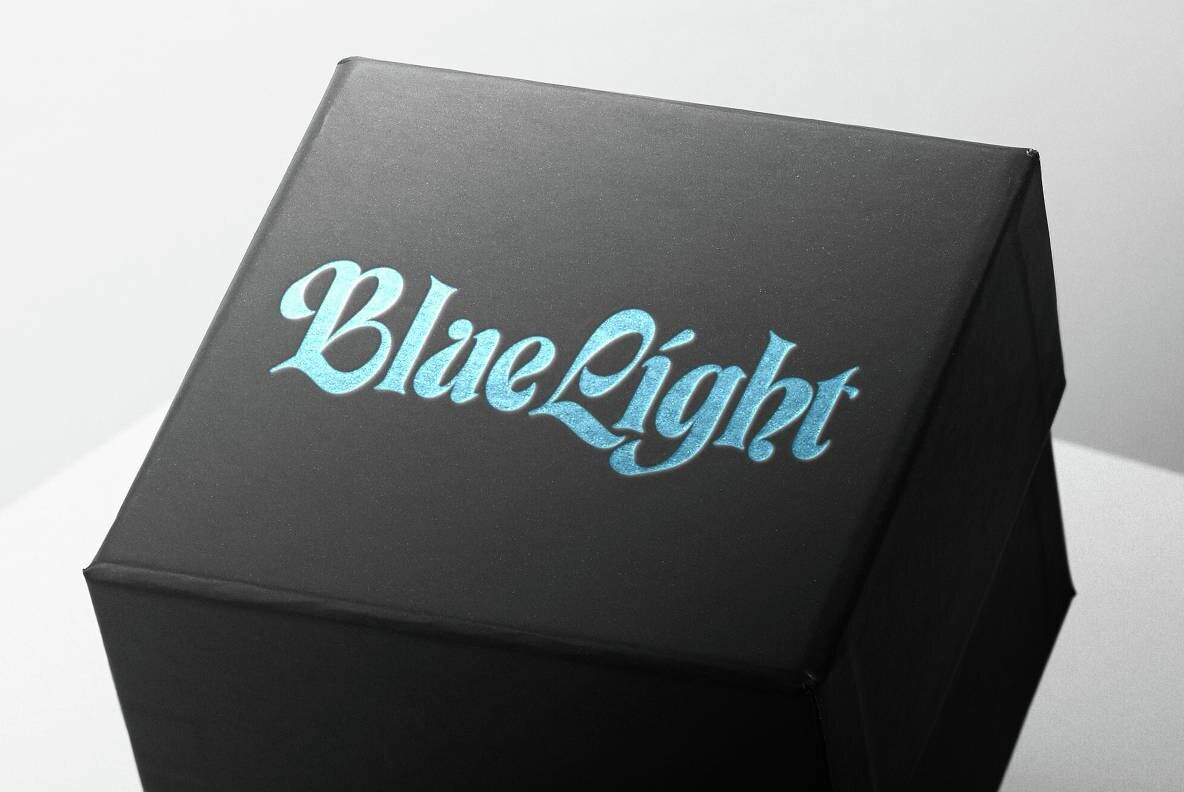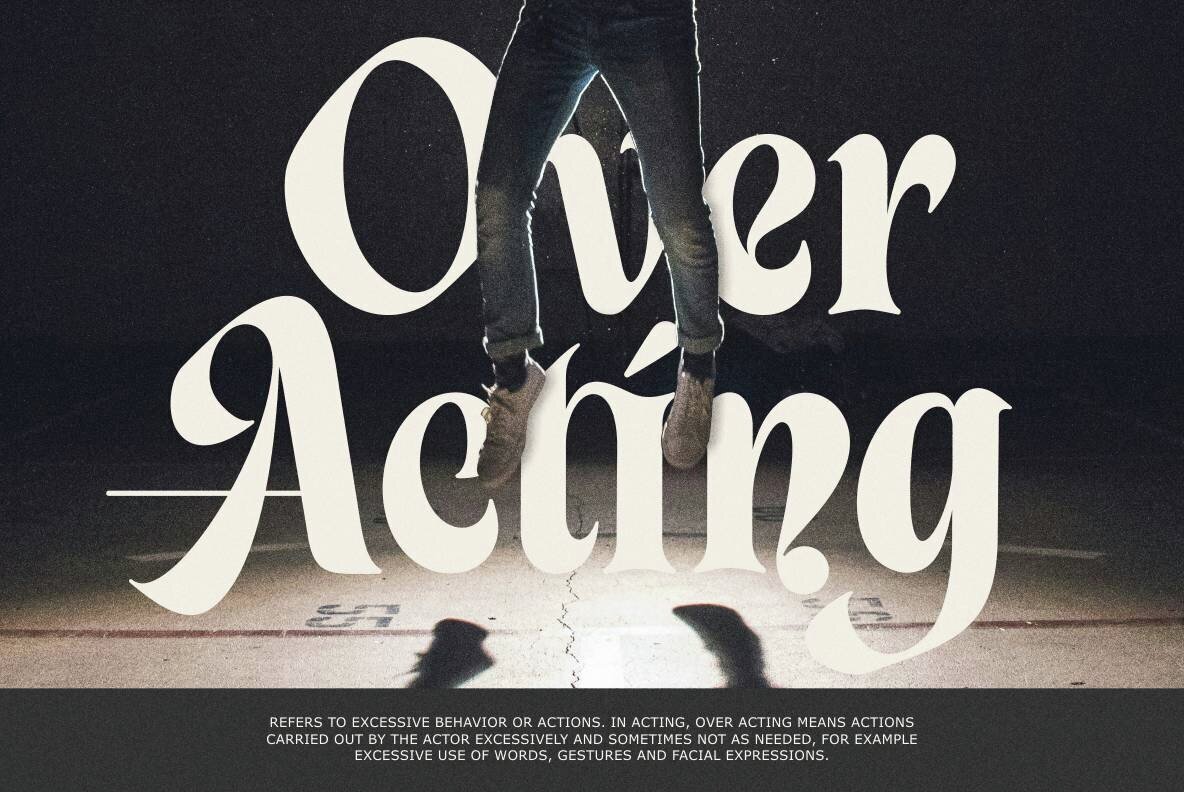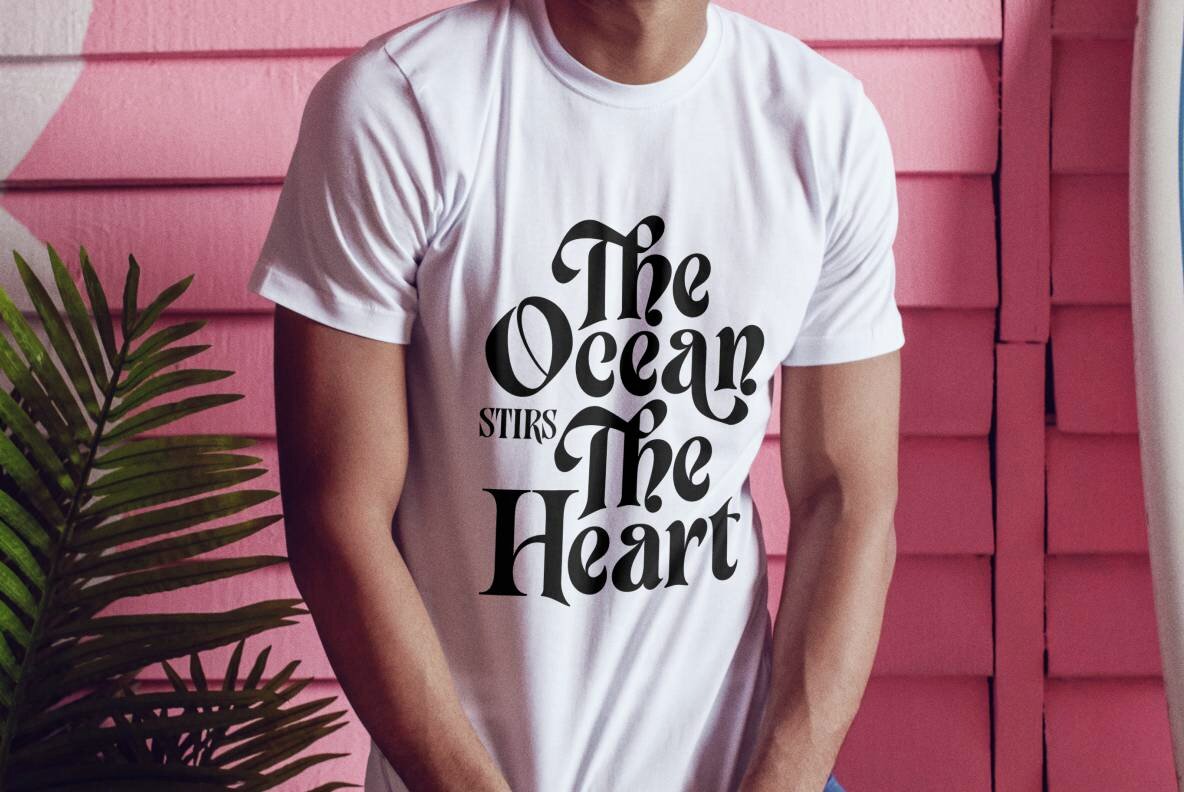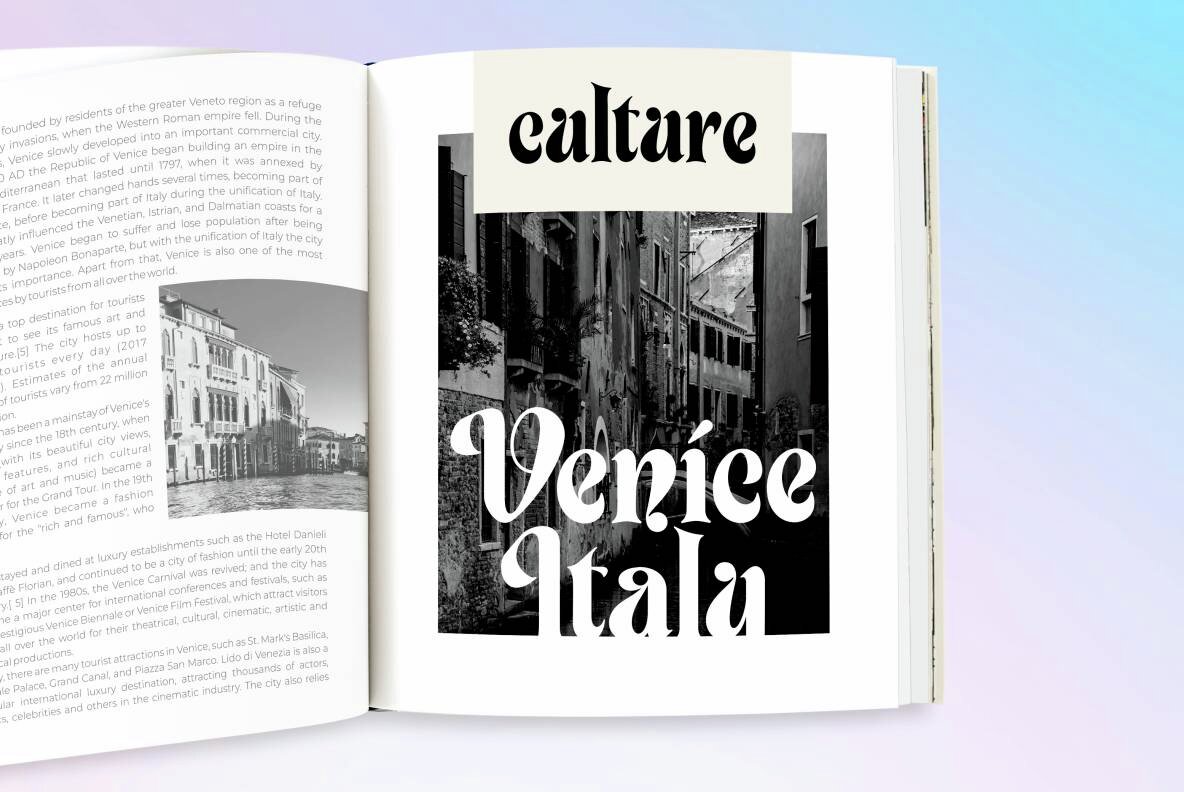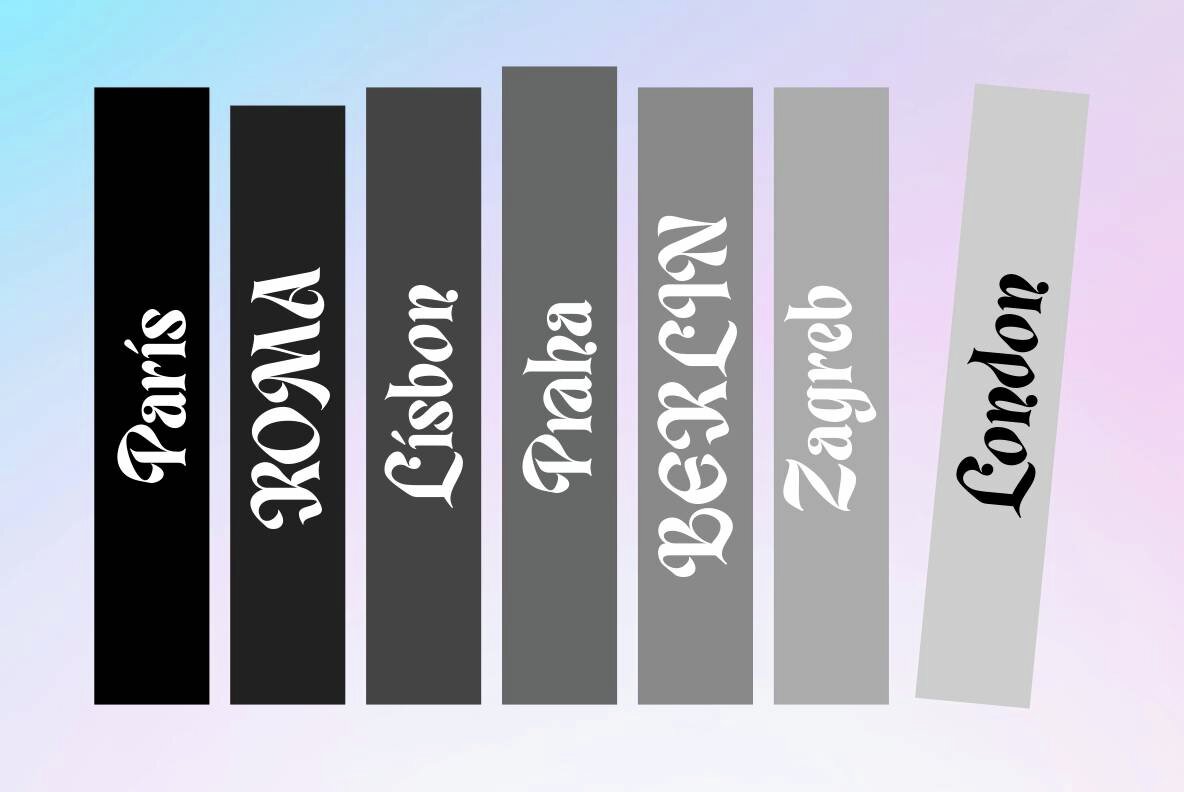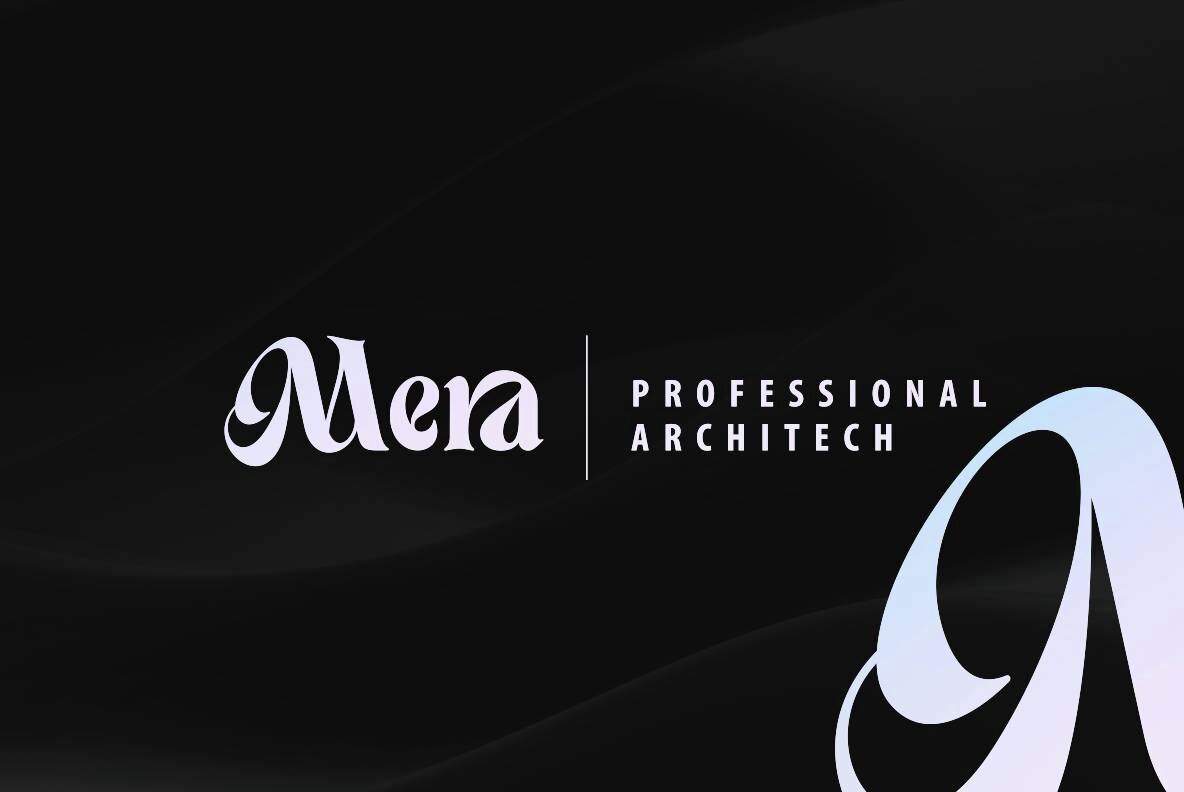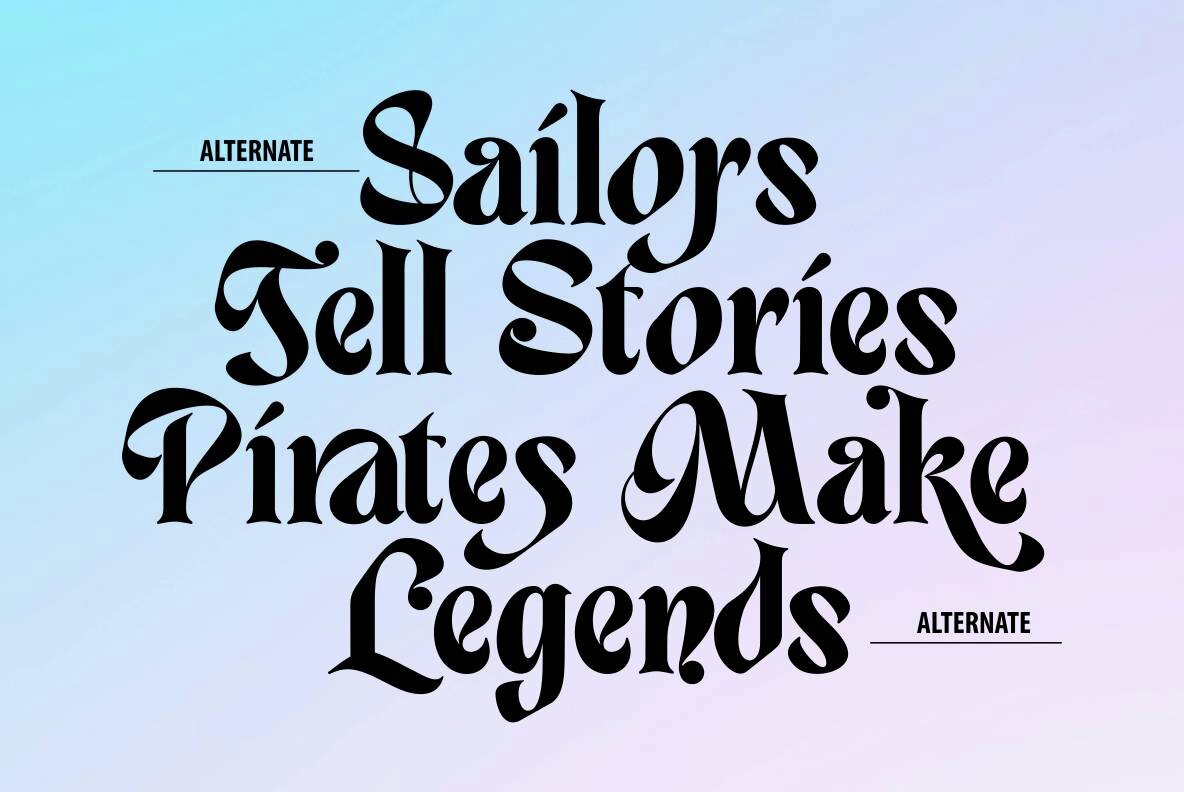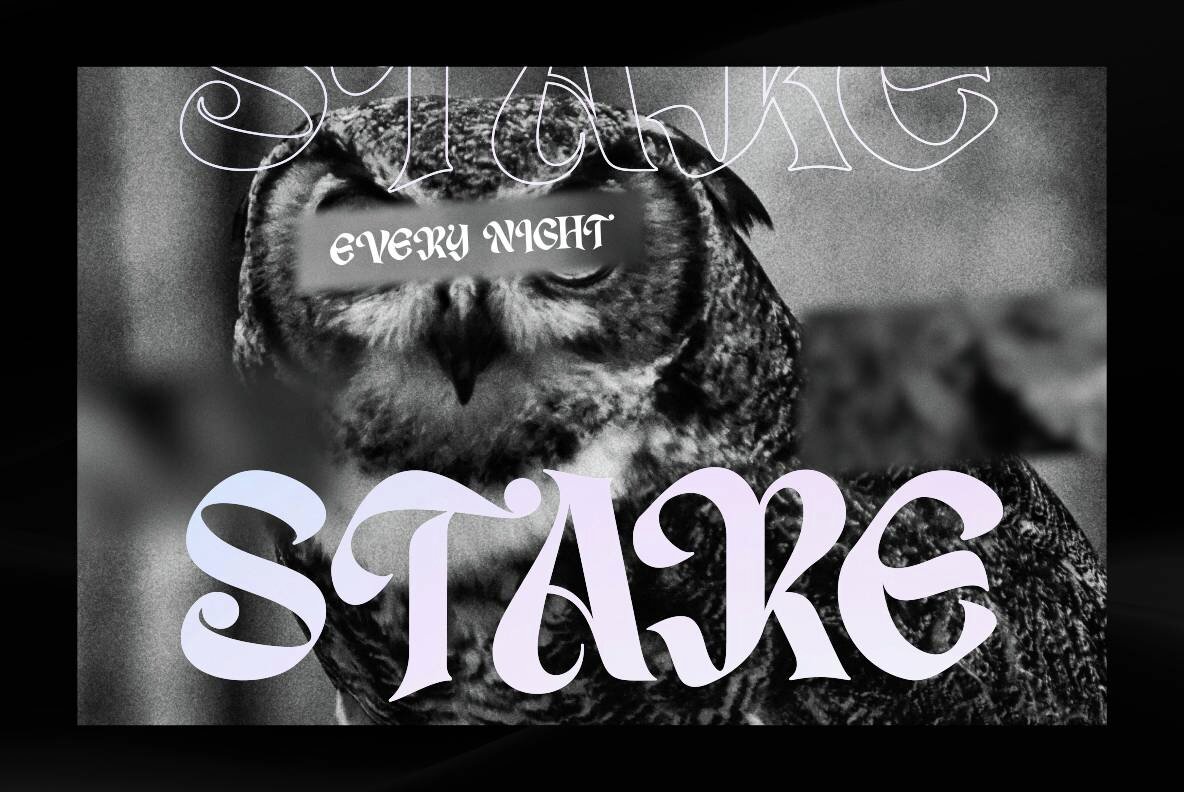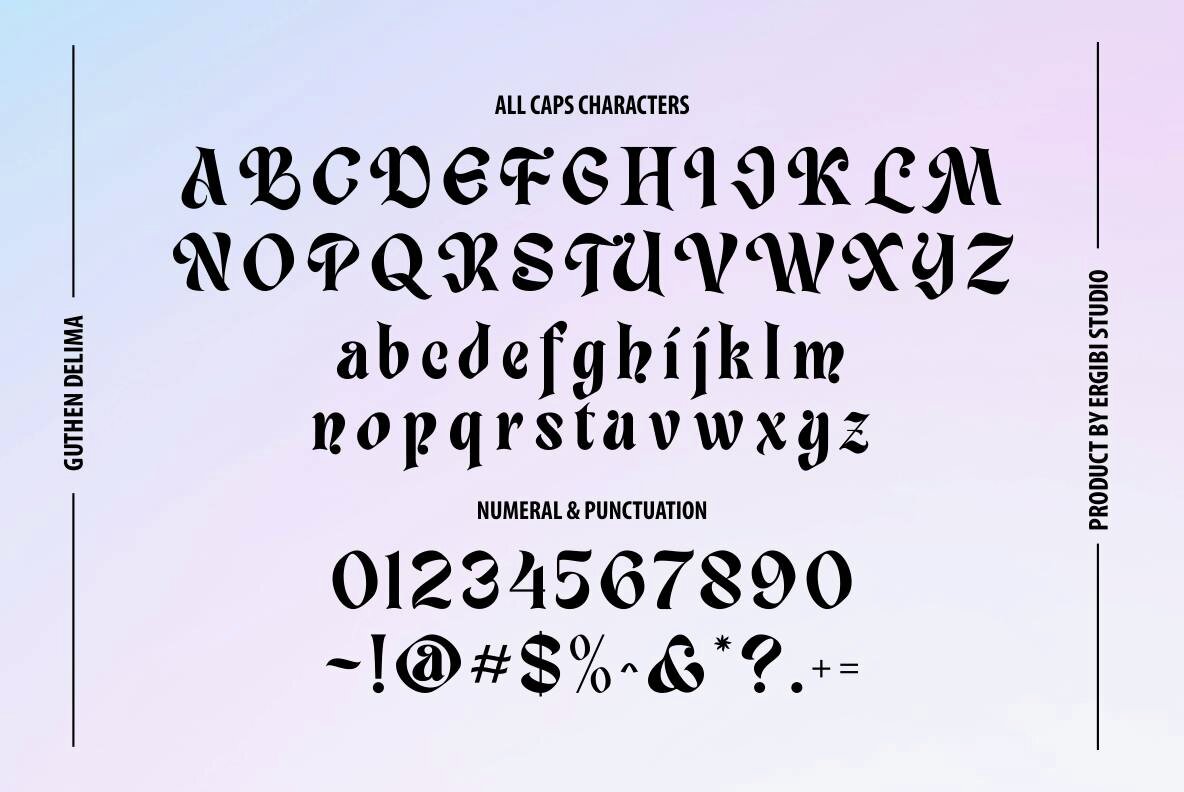
Transform Your Designs with Guthen Delima Display Typeface by Ergibi Studio
Enrich your graphic design and marketing firm collections with the uniquely bold Guthen Delima Display Typeface. Exquisitely designed by the highly acclaimed Ergibi Studio, this typeface brings a modern and minimalist touch to your projects. Its distinctive stylistic alternate allows it to stand out, making it the perfect font choice for headline texts and more.
Product: Guthen Delima Display Typeface
Designer: Ergibi Studio
Style: Modern, Minimalist, Unique
Features: Stylistic Alternate
Perfect for: Headline Texts